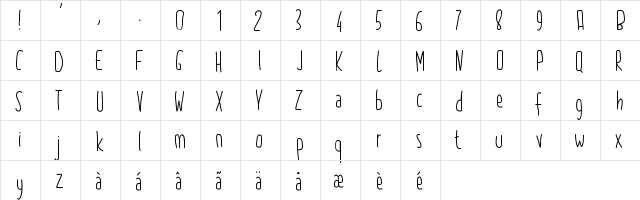
PW2015 Medium
Design Context for PW2015 Typeface
PW2015 offers clean, dependable letterforms without strong stylistic allegiance, making it a practical choice for designers who need flexibility.